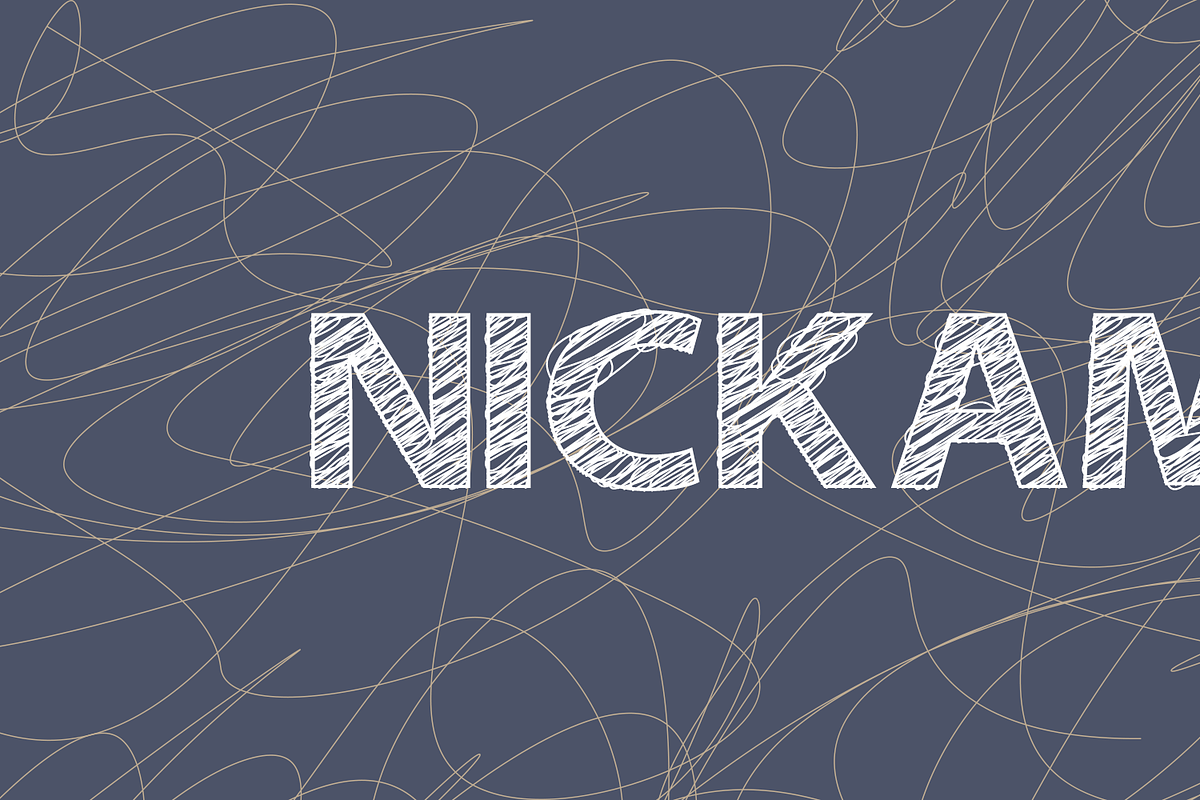
NICKAM Scribble Font Free Download
Nickam Scribble Font Free Download is a playful and expressive typeface that captures the energy of spontaneous doodles and sketchbook creativity. With its scribbled lines and hand-drawn charm, this font is perfect for kids’ designs, creative branding, DIY projects, comic-style titles, and fun social media graphics.
It brings a sense of movement and imagination to every word, making it ideal for casual and creative projects. Whether you're designing a school worksheet or crafting a bold, artsy logo, Nickam Scribble adds a personal and energetic touch. Nickam Scribble Font Free Download lets you explore its quirky style in personal projects before purchasing a commercial license.
Unleash creative chaos with Nickam Scribble — the font that turns every word into a hand-drawn expression.